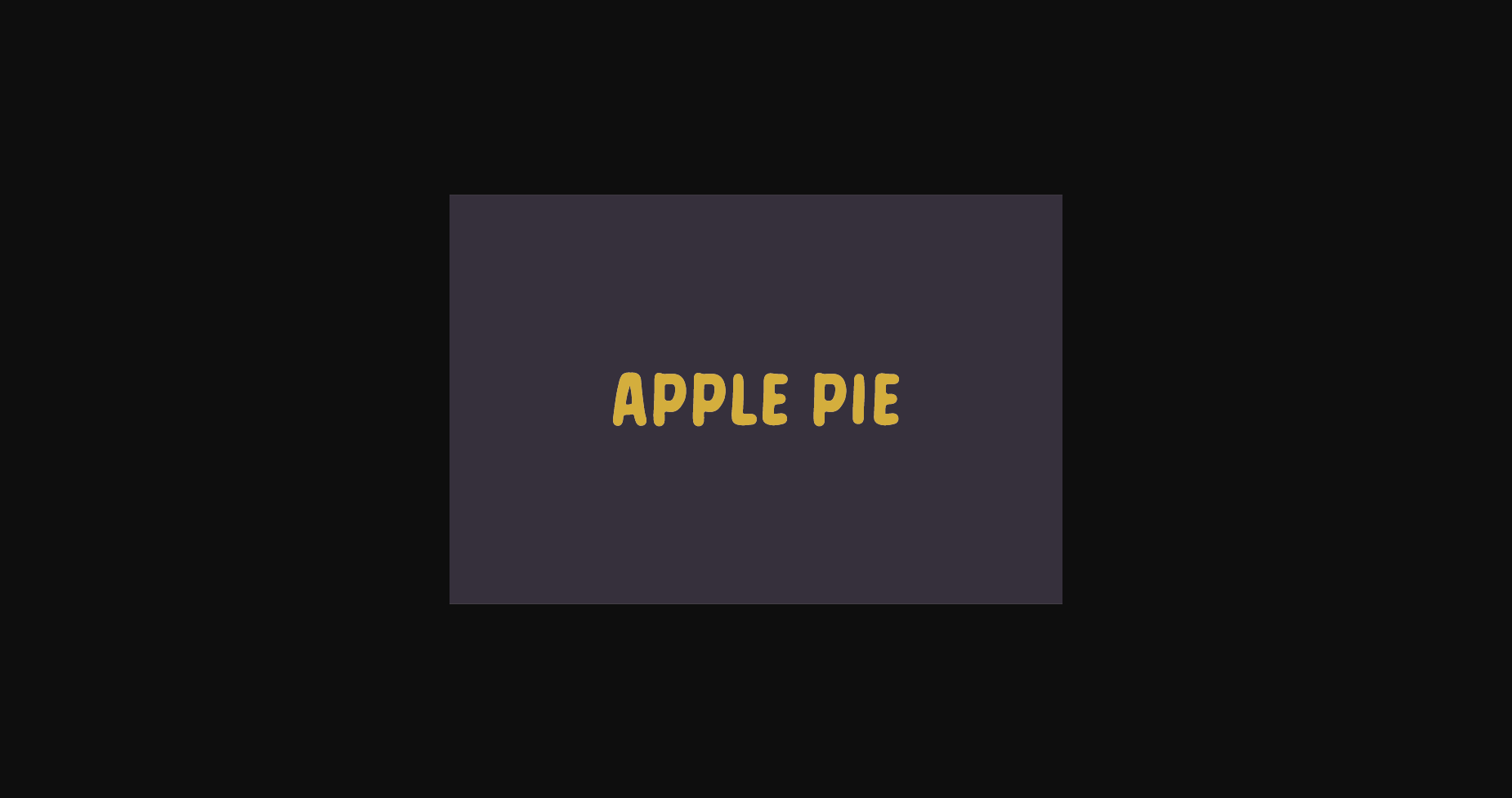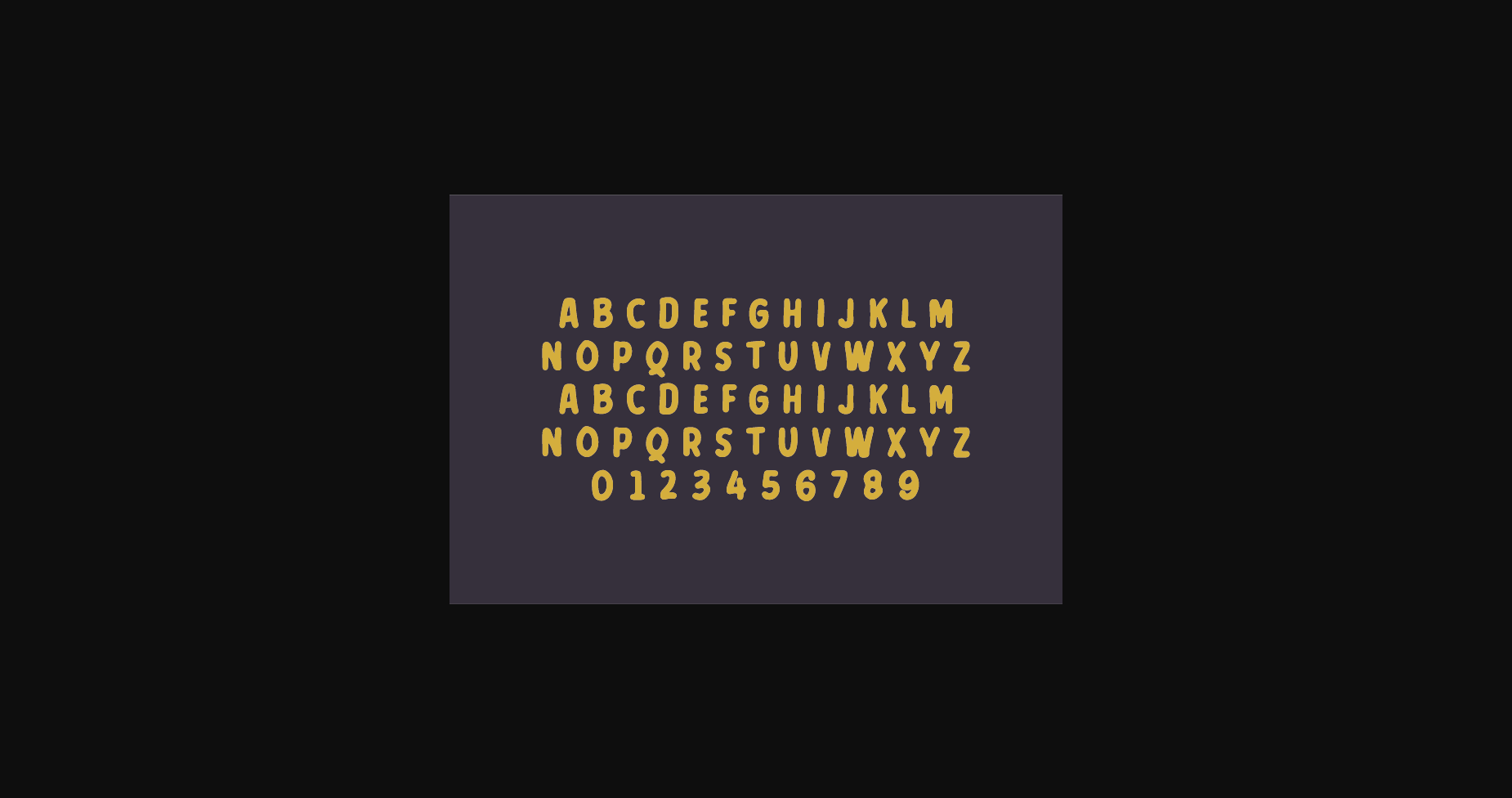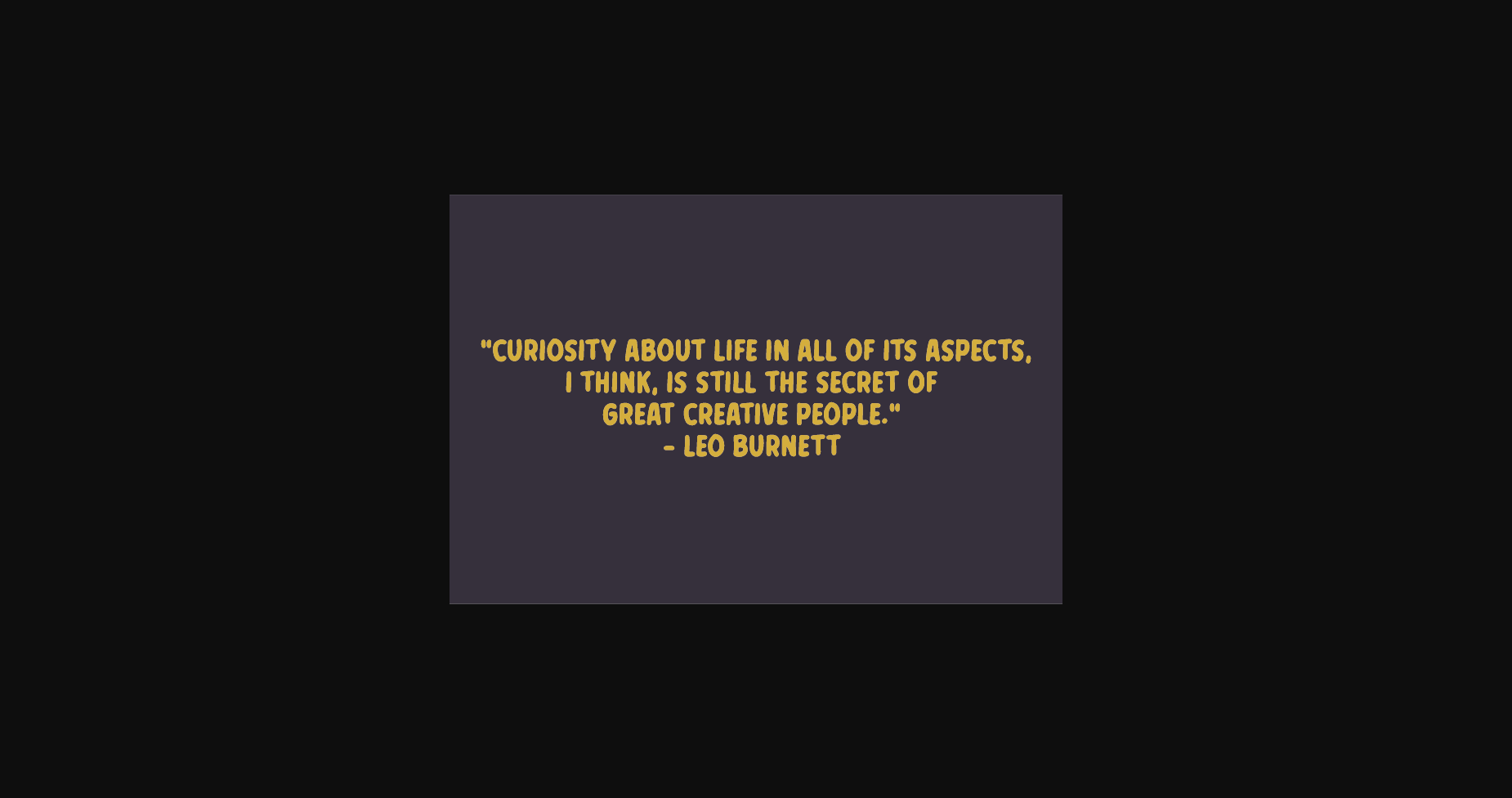
About Apple Pie Font
Apple Pie is a cool and casual sans serif font. It can easily be matched to an incredibly large set of projects, so add it to your creative ideas and notice how it makes them stand out!